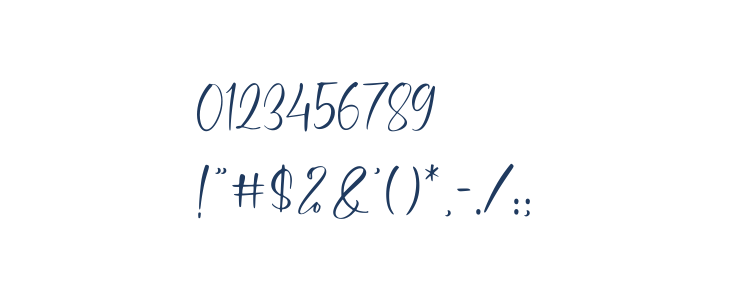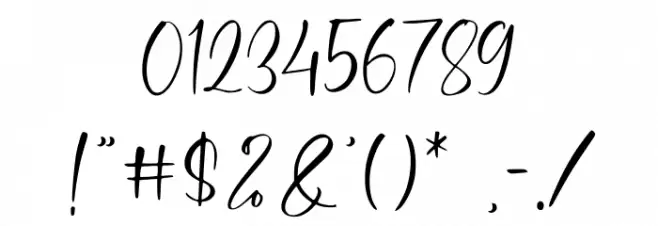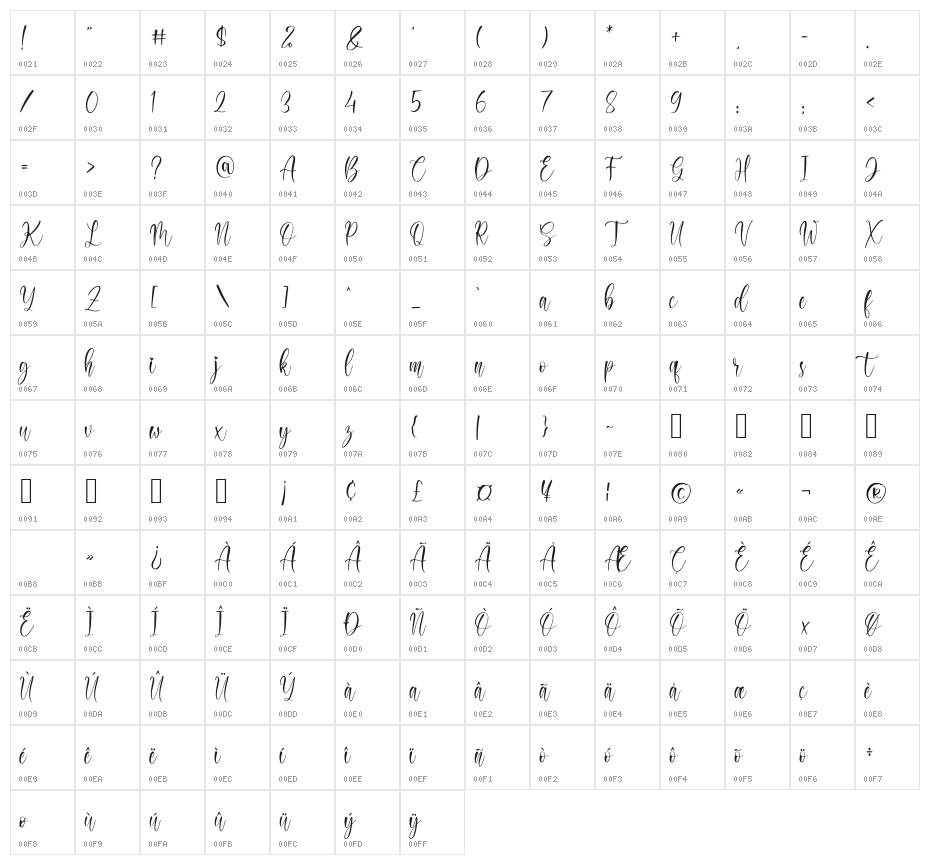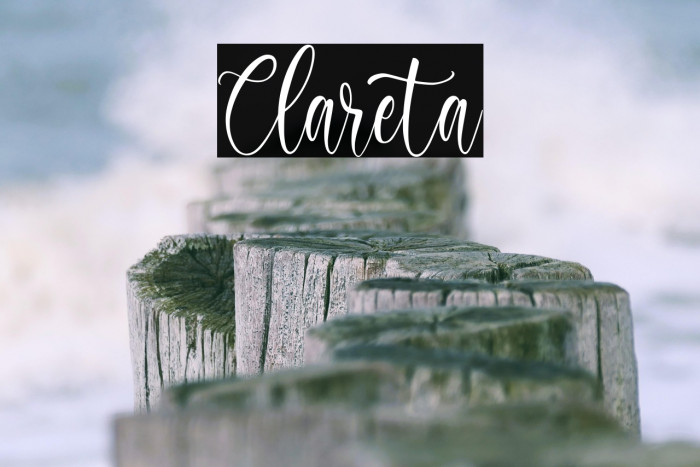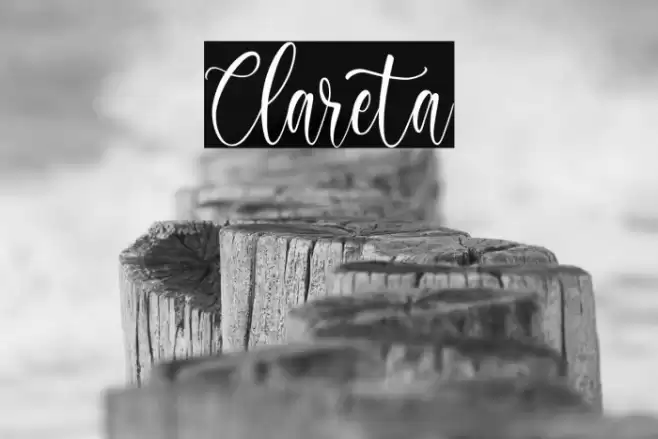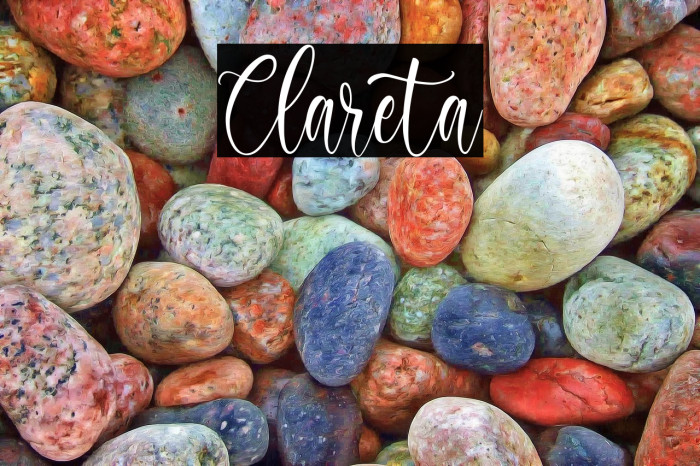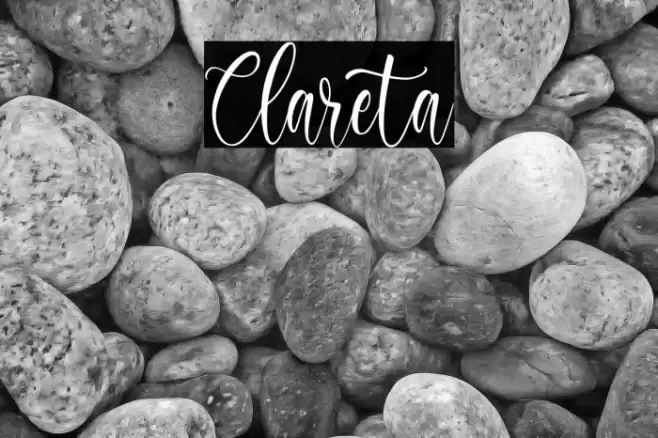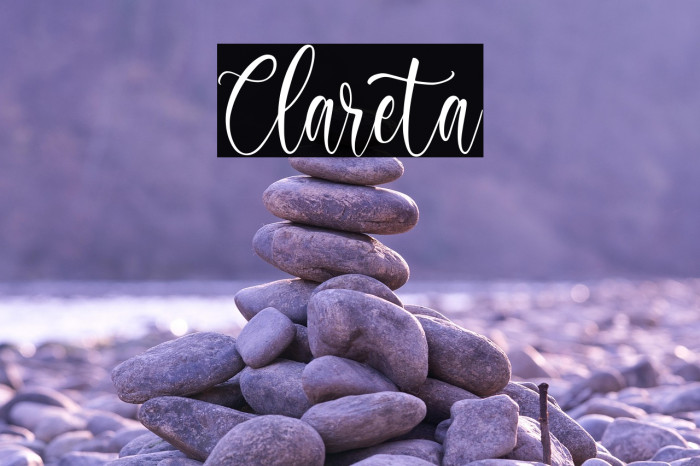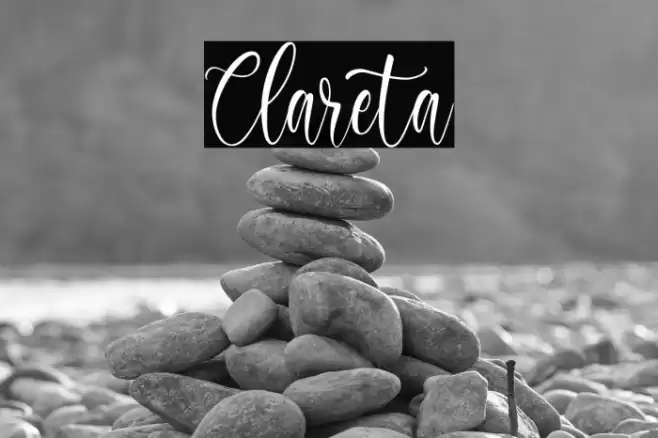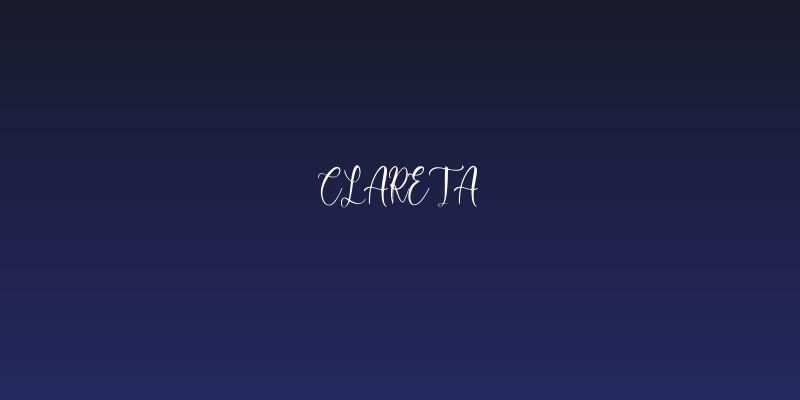
Clareta Font
Clareta Description
This font exudes a charming and elegant handwritten style, characterized by its fluid, cursive strokes and graceful loops. The uppercase letters are tall and slender, with a slight slant that adds a dynamic flow to the text. The lowercase letters maintain a consistent style, featuring delicate curves and a harmonious balance between thick and thin lines. The numerals are designed with a similar flair, ensuring a cohesive look across all characters. Special characters are thoughtfully crafted, maintaining the font's overall aesthetic. This font is perfect for projects that require a personal touch, such as invitations, greeting cards, or branding materials.